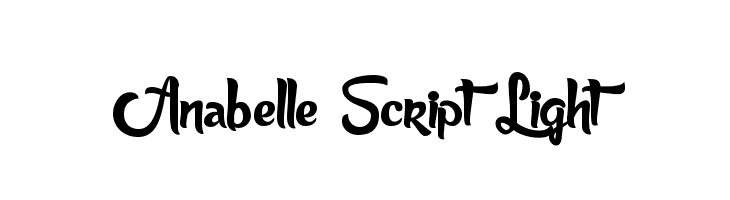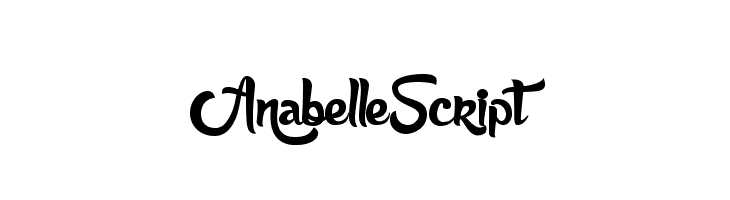
A bold, vintage-style font with theatrical and quirky embellishments.
( Fonts by The Font Emporium )
A bold, distressed font with a rugged, grungy appearance.
( Fonts by Meir Sadan - www.sadan.com OFF SITE )
A distressed, grungy font with a bold, hand-drawn appearance.
( Fonts by Andrew Hart - dirt2.com )
A bold, distressed font with a grunge aesthetic and rebellious style.
( Font by Ben Nathan - www.hafontia.com )
A distressed, grungy font with jagged edges and a chaotic aesthetic.